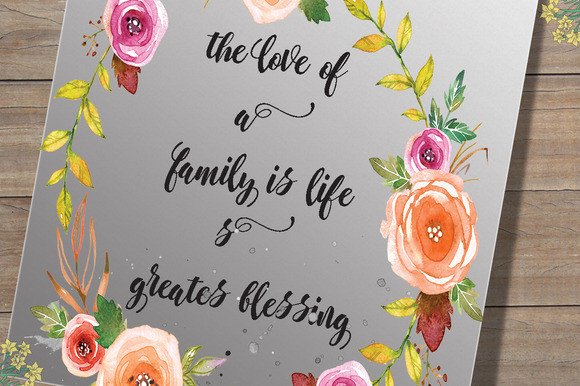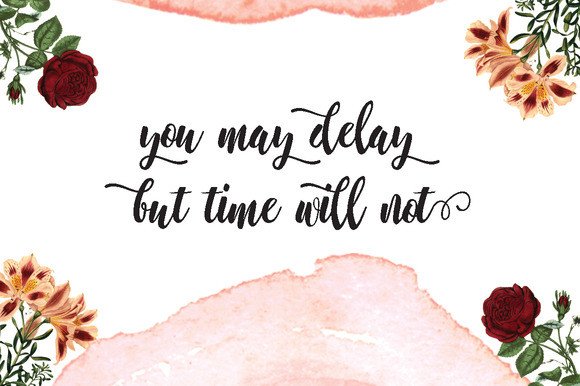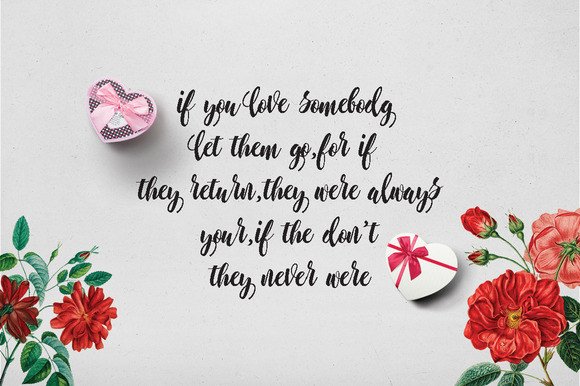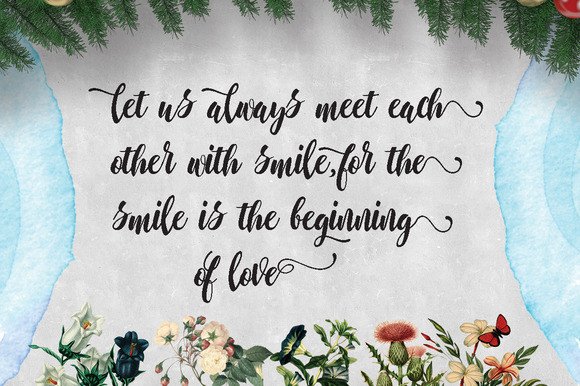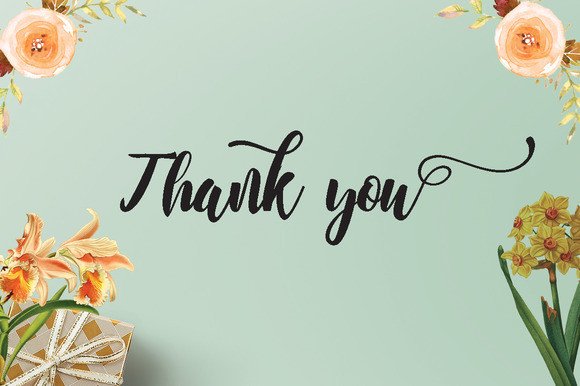
Introducing Barbarella Font: The Perfect Addition to Your Design Arsenal
Are you a designer or crafter looking for a font that can add a touch of elegance and whimsy to your creative projects? Look no further than Barbarella Font. This gorgeous inky script font is perfect for giving your designs an added charm and handwritten feel, making it ideal for floral and romantic creative projects.
What is Barbarella Font?
Barbarella Font is a beautiful, hand-crafted script font that features flowing lines and delicate strokes. Its unique inky texture gives it a distinctive look that sets it apart from other script fonts. The font is designed to be highly legible, making it perfect for use in a variety of design applications, from wedding invitations and greeting cards to branding and packaging.
Key Features of Barbarella Font
• Inky Texture: The font’s inky texture gives it a unique, hand-painted look that’s perfect for adding a touch of whimsy to your designs.
• Script Style: Barbarella Font is a script font that features flowing lines and delicate strokes, making it perfect for use in romantic and floral designs.
• High Legibility: The font is designed to be highly legible, making it perfect for use in a variety of design applications.
• Hand-Crafted: The font is hand-crafted, giving it a unique and personal touch.
Uses for Barbarella Font
Barbarella Font is a versatile font that can be used in a variety of design applications. Here are some ideas for using the font:
• Wedding Invitations: The font’s romantic and elegant style makes it perfect for use in wedding invitations and other wedding-related design materials.
• Greeting Cards: The font’s whimsical and playful style makes it perfect for use in greeting cards and other paper crafts.
• Branding and Packaging: The font’s unique and eye-catching style makes it perfect for use in branding and packaging design.
• Floral and Botanical Designs: The font’s floral and romantic style makes it perfect for use in floral and botanical designs.
Tips for Using Barbarella Font
Here are some tips for using Barbarella Font in your designs:
• Pair it with Other Fonts: Barbarella Font pairs well with other fonts, such as sans-serif fonts and serif fonts. Experiment with different font combinations to find the perfect look for your design.
• Use it in Combination with Images: The font’s whimsical and playful style makes it perfect for use in combination with images, such as illustrations and photographs.
• Experiment with Different Colors: The font’s inky texture looks great in a variety of colors, from bold and bright to soft and pastel.
Barbarella Font is a beautiful and versatile font that’s perfect for designers and crafters looking to add a touch of elegance and whimsy to their creative projects. Its unique inky texture and script style make it ideal for use in floral and romantic designs, while its high legibility and hand-crafted feel make it perfect for use in a variety of design applications. Whether you’re designing wedding invitations, greeting cards, or branding and packaging materials, Barbarella Font is sure to be a valuable addition to your design arsenal.